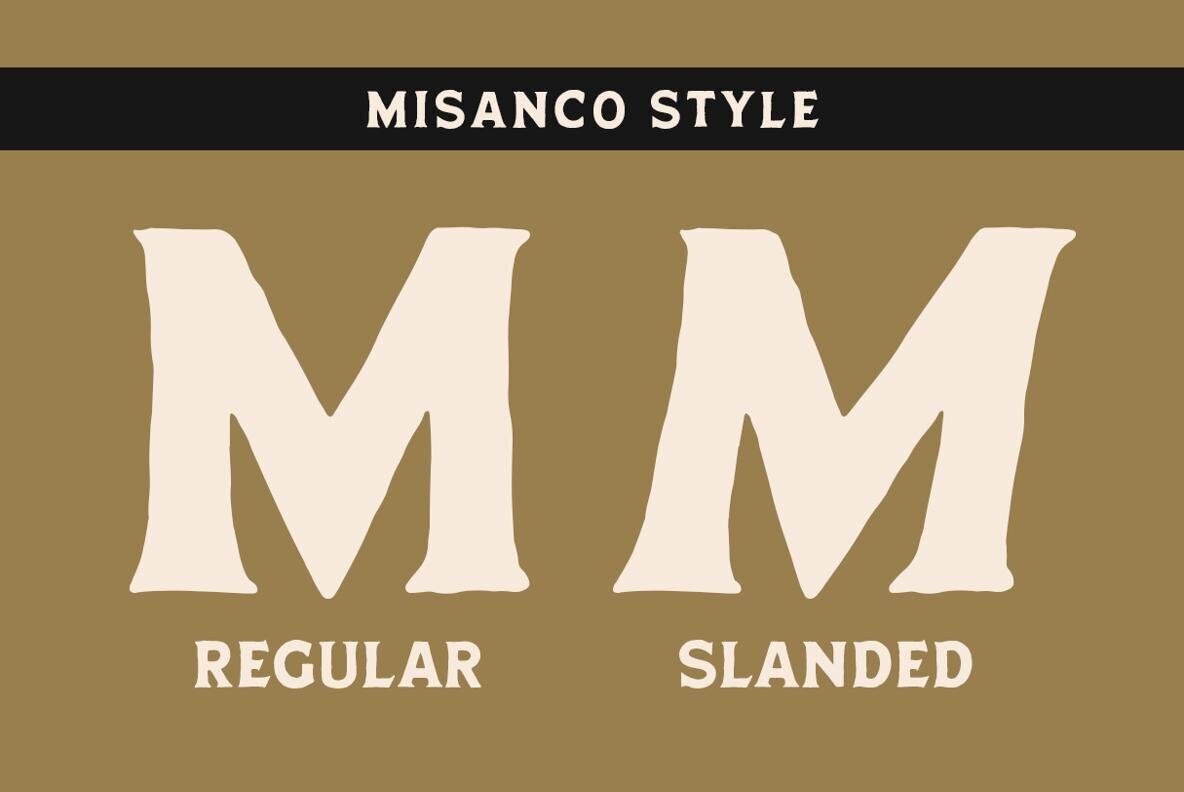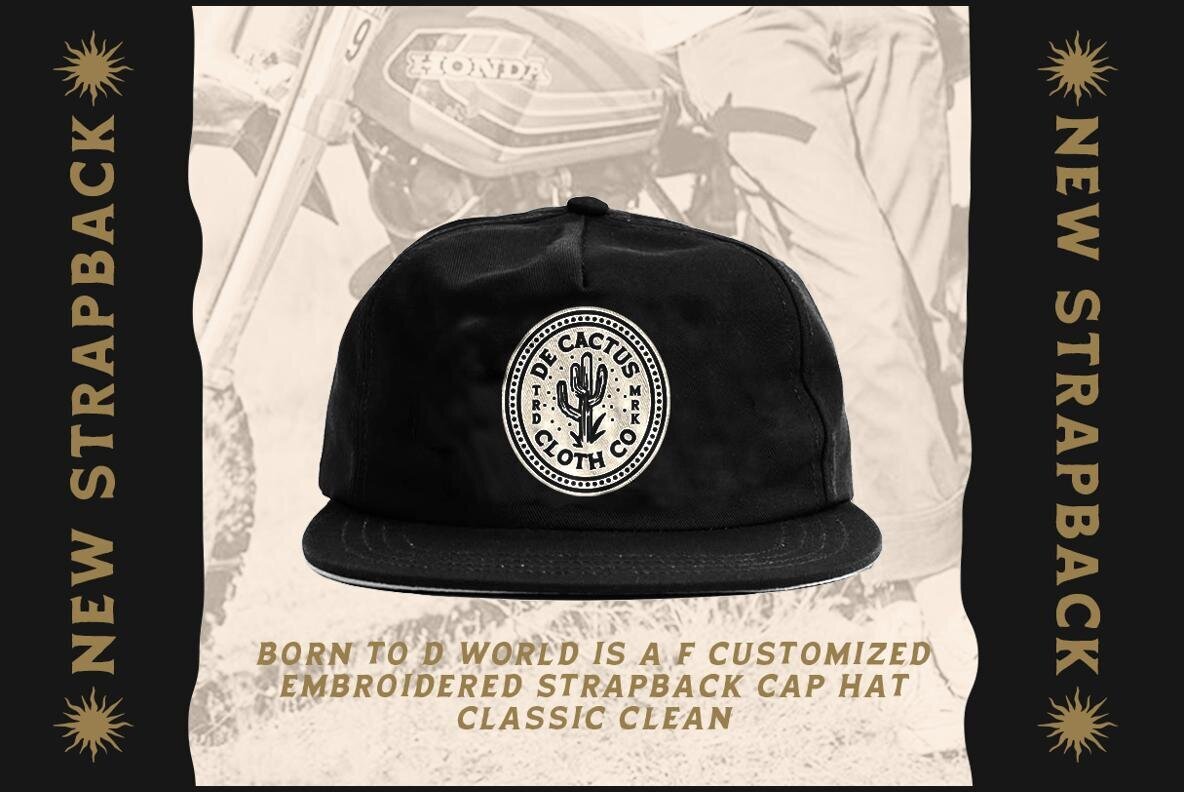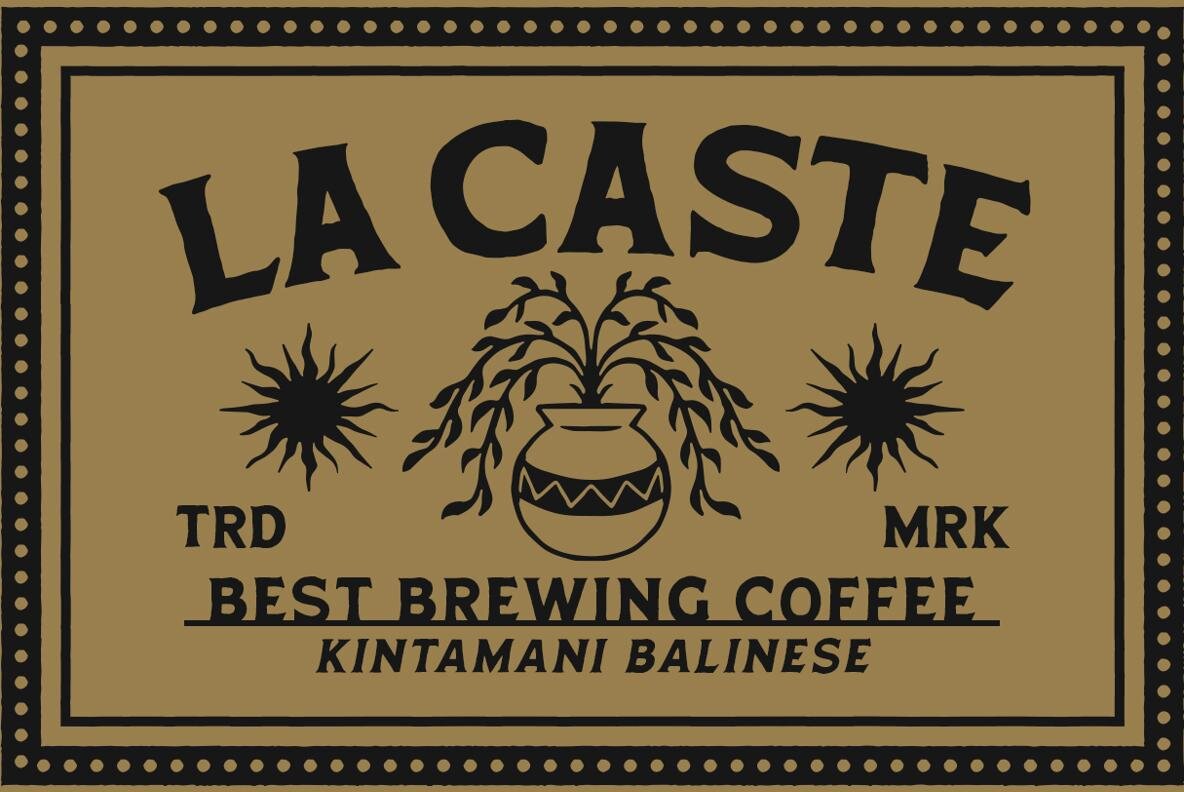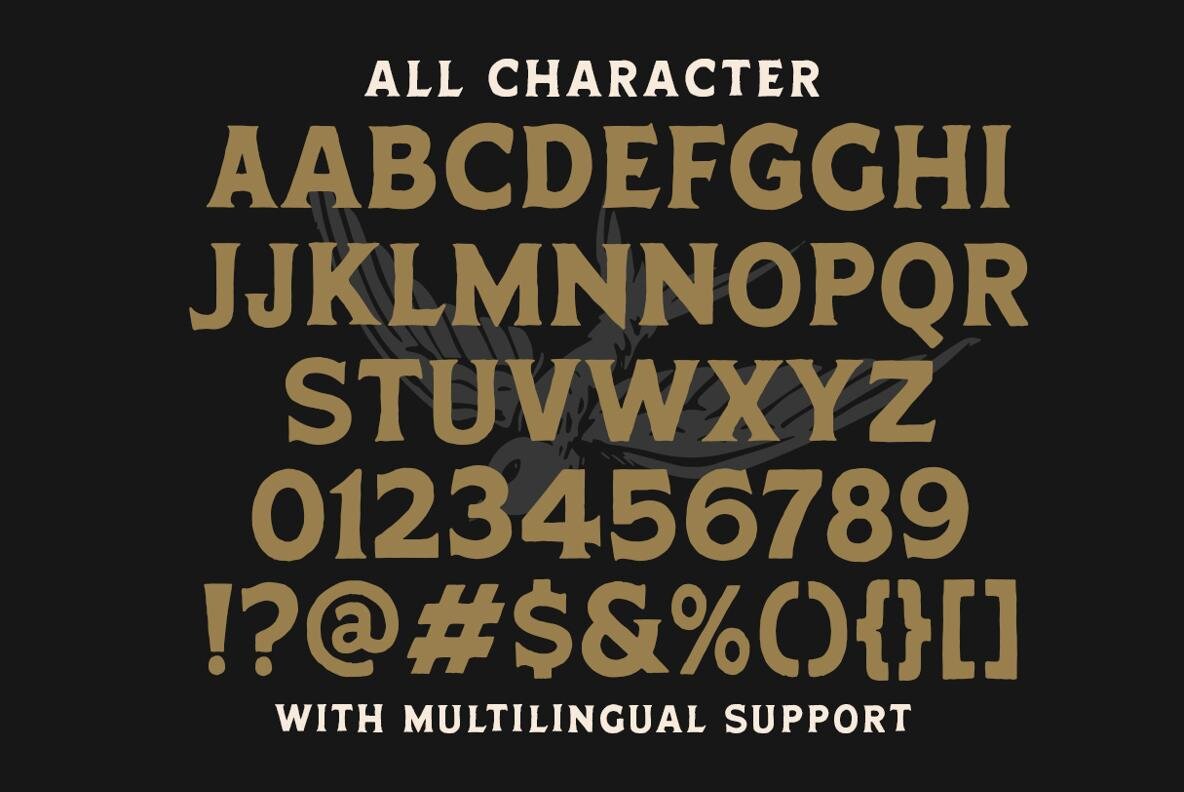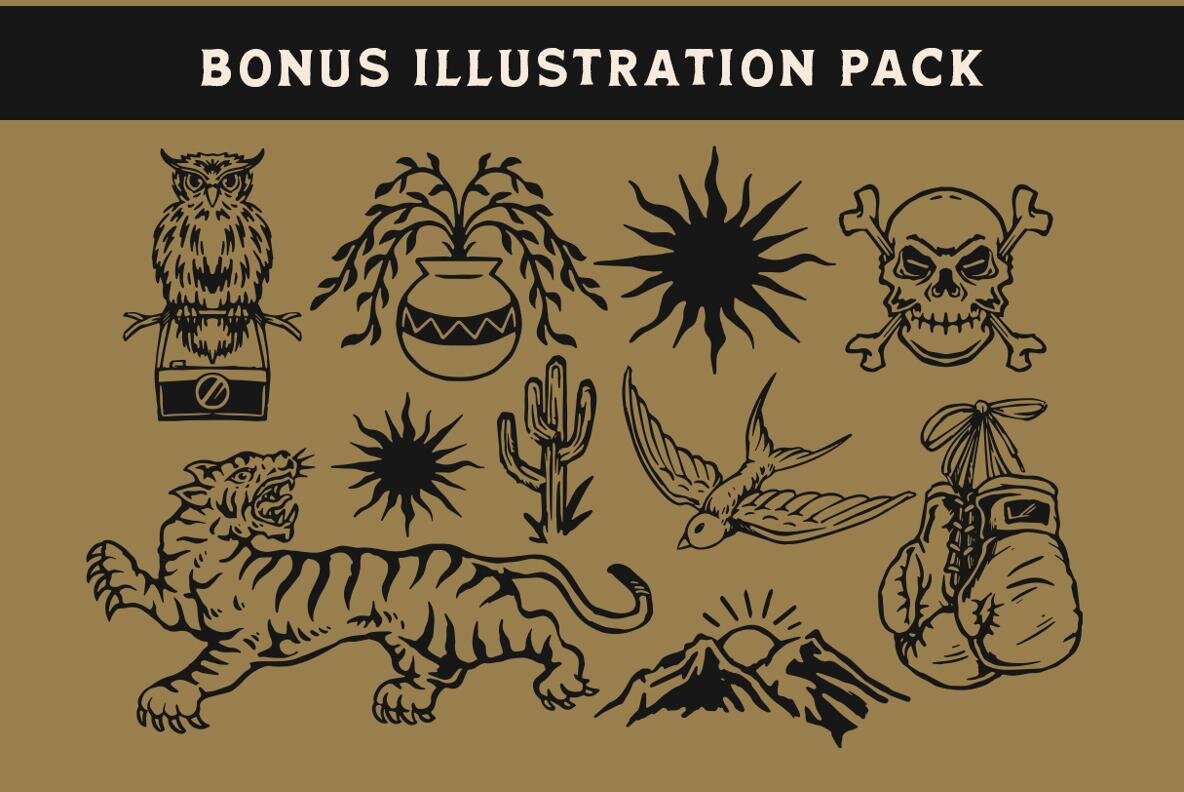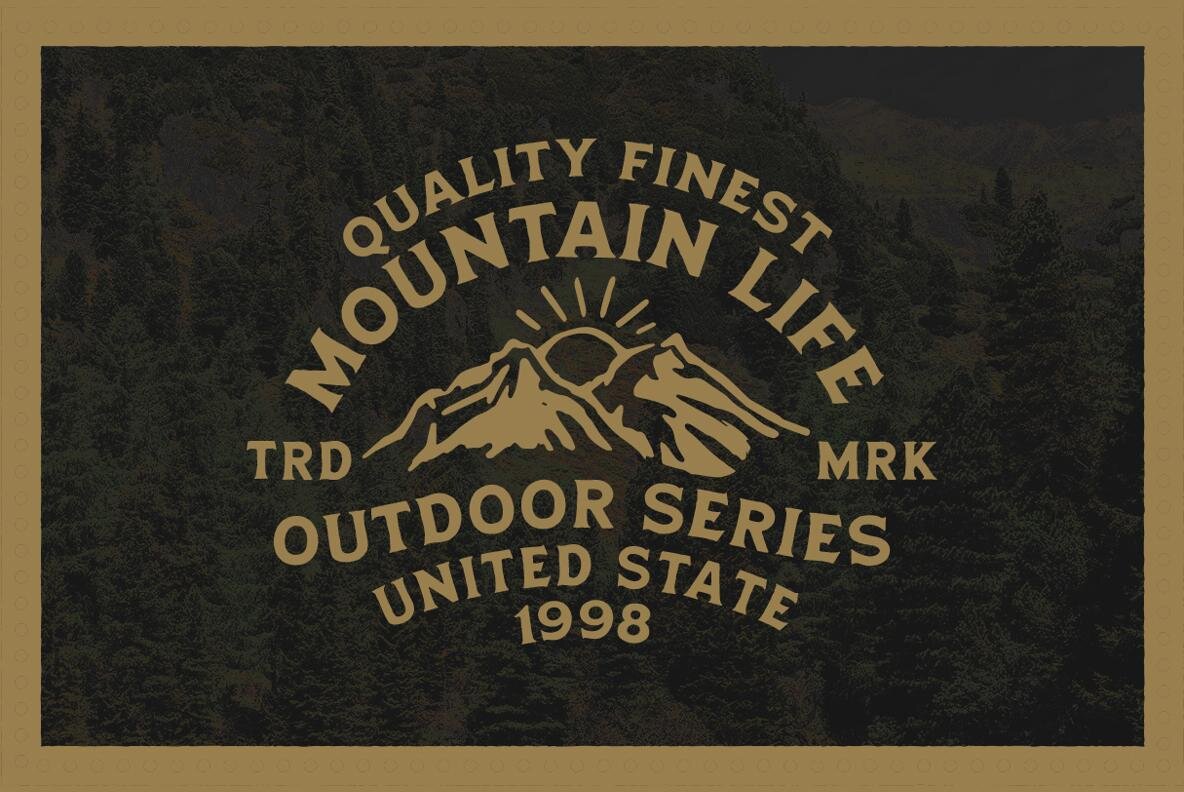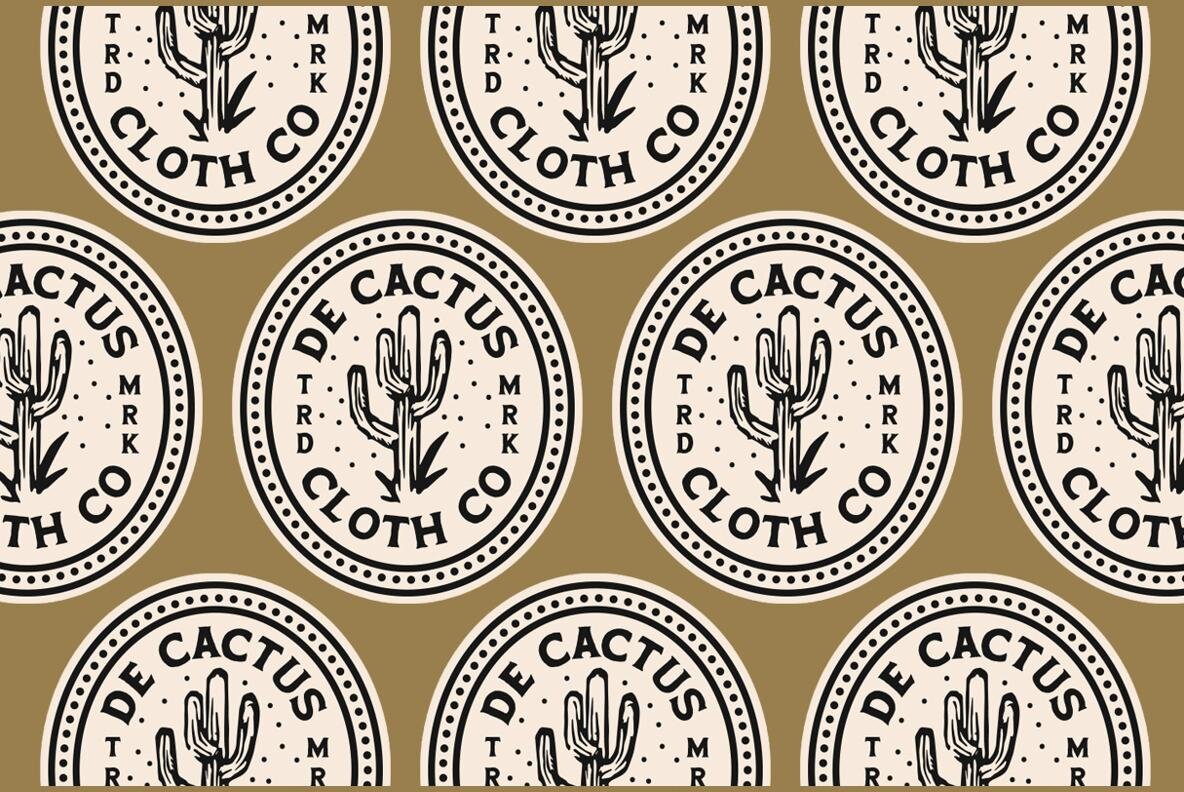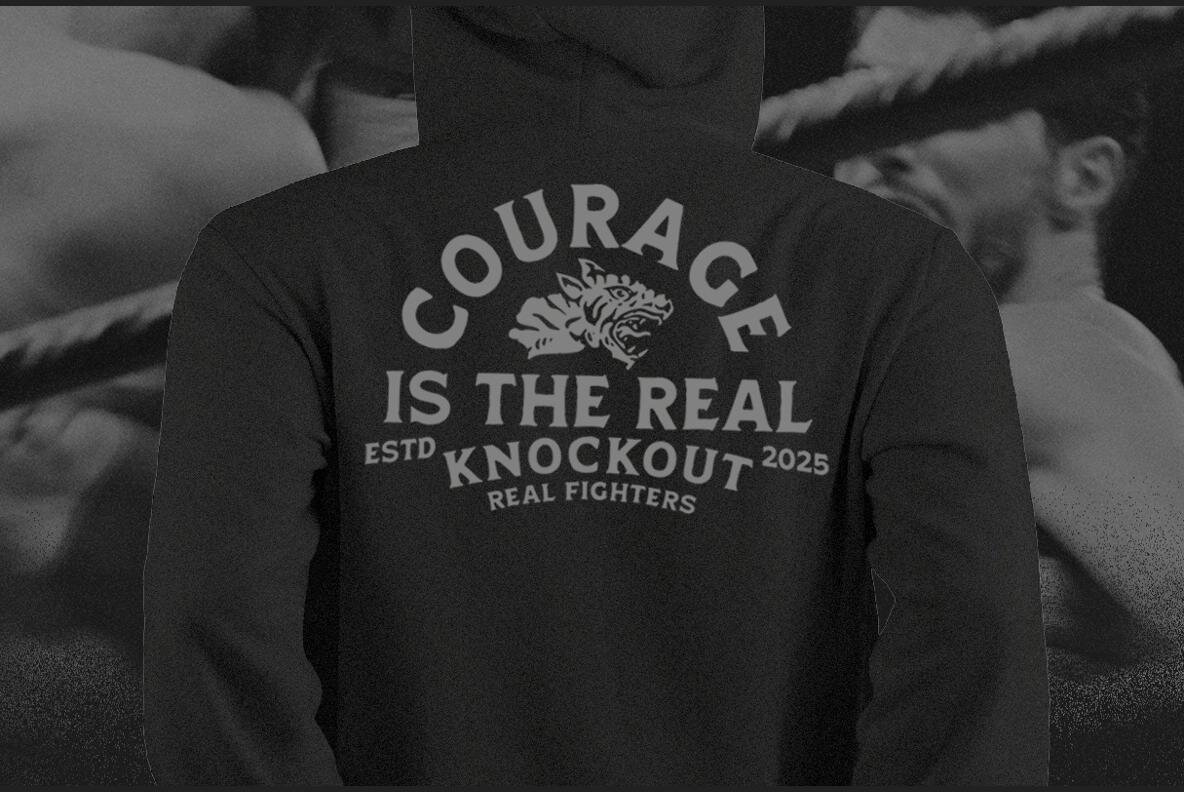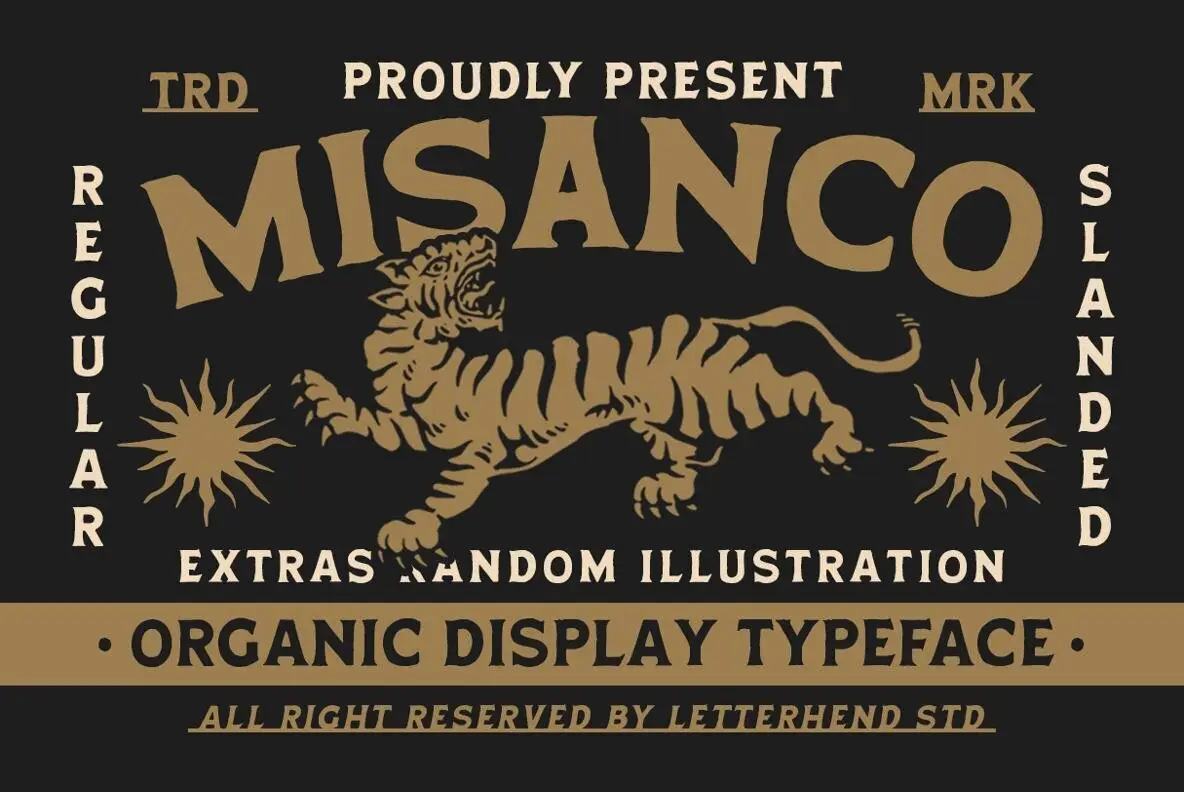
Misanco Font
Misanco is an organic display typeface that combines boldness with artistic flair. Its letterforms, which are both expressive and adventurous, draw inspiration from vintage aesthetics, offering a handcrafted quality that exudes authenticity. Available in Regular and Slanted styles, Misanco's unique shapes convey a rugged, masculine allure while retaining a hint of retro charm. This makes it an excellent choice for creative projects seeking to capture attention while maintaining a handcrafted essence. For full access to all Glyph variations, we recommend using applications such as Adobe Photoshop or Corel Draw, which support OpenType features.Misanco: Organic Display Typeface with Vintage Flair